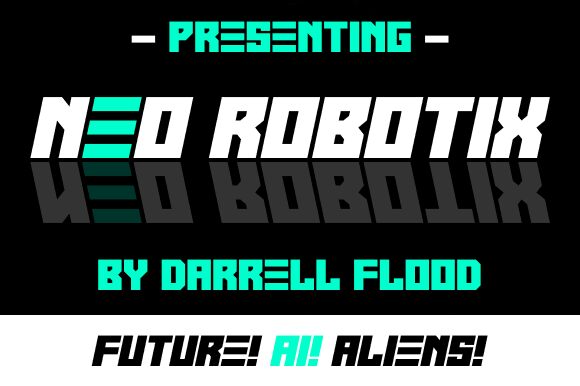
Neo Robotix
Neo Robotix is the perfect font for projects that require an edgy, futuristic vibe. Its bold and extra-bold weight makes it ideal for attention-grabbing headlines, while its sleek and modern design ensures legibility even at smaller sizes. Designed by Hawtpixel, this display font boasts a distinct style that's sure to make any project stand out. Use Neo Robotix for branding materials, sci-fi posters, gaming graphics, or anything else that calls for a touch of tech-savvy coolness. With its unique look and feel, this font will take your designs to the next level.